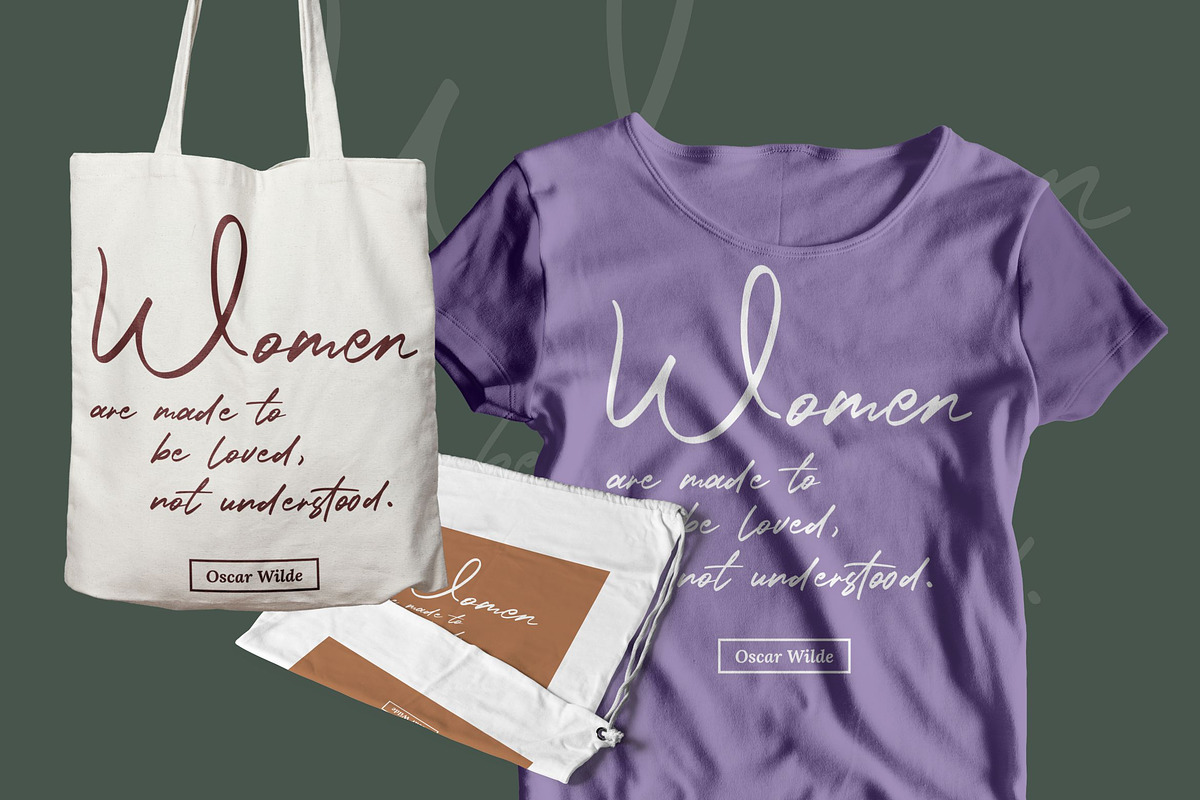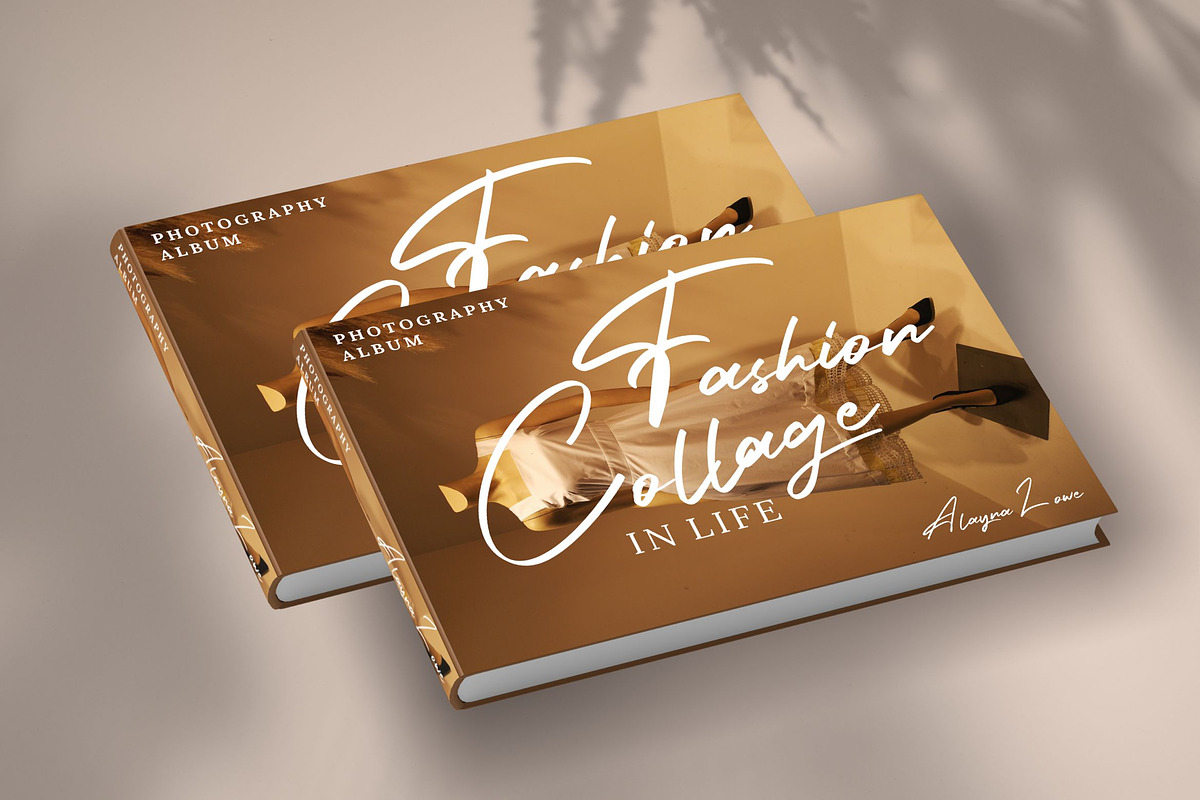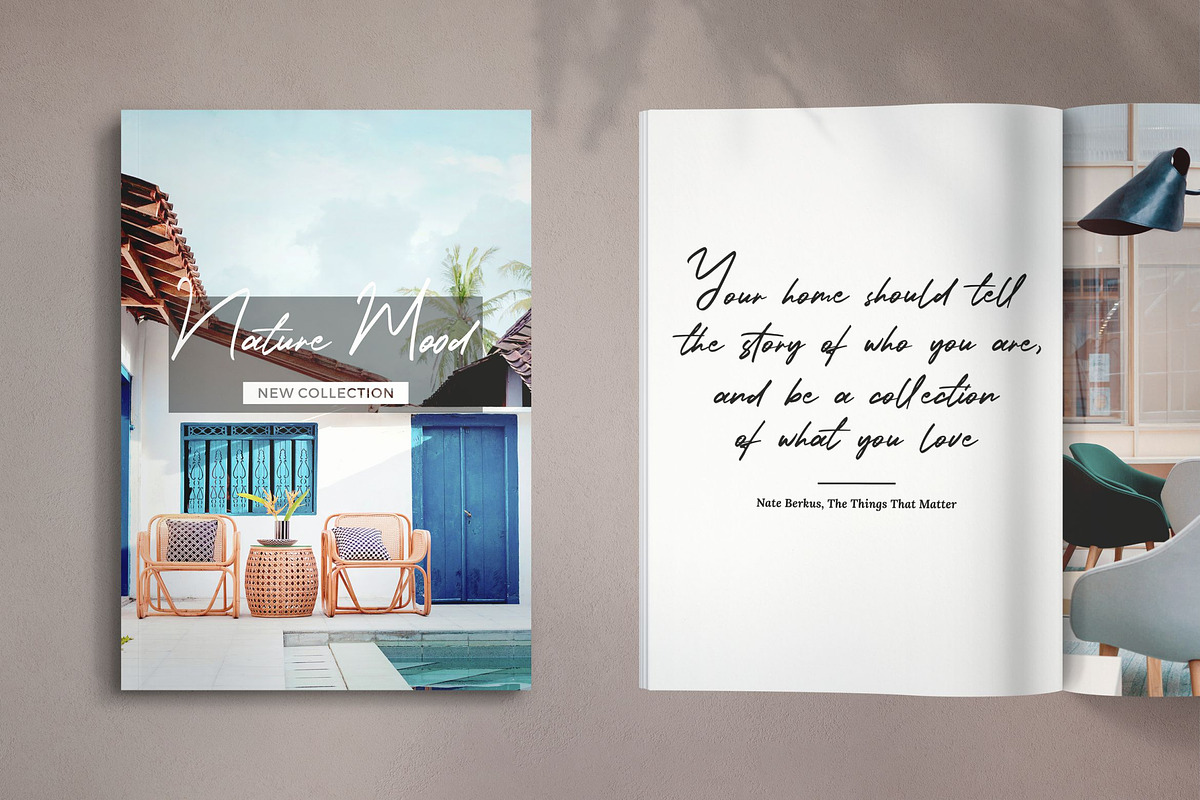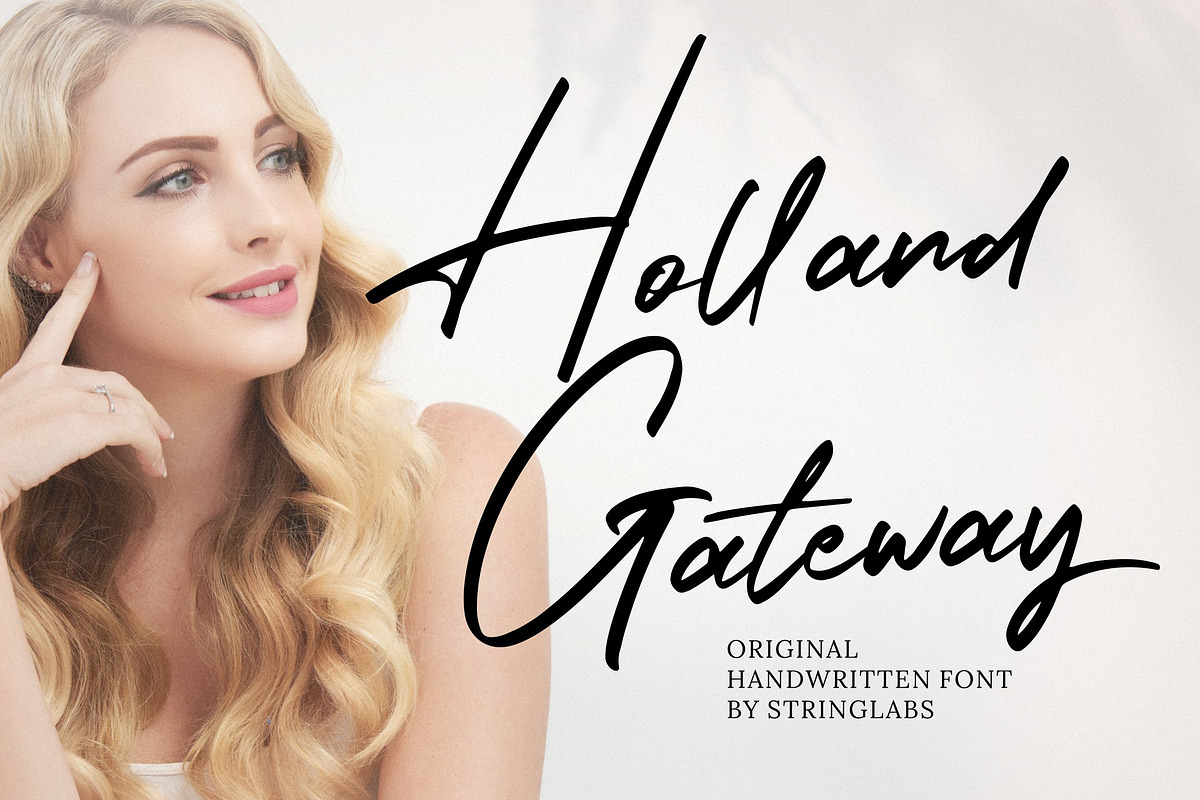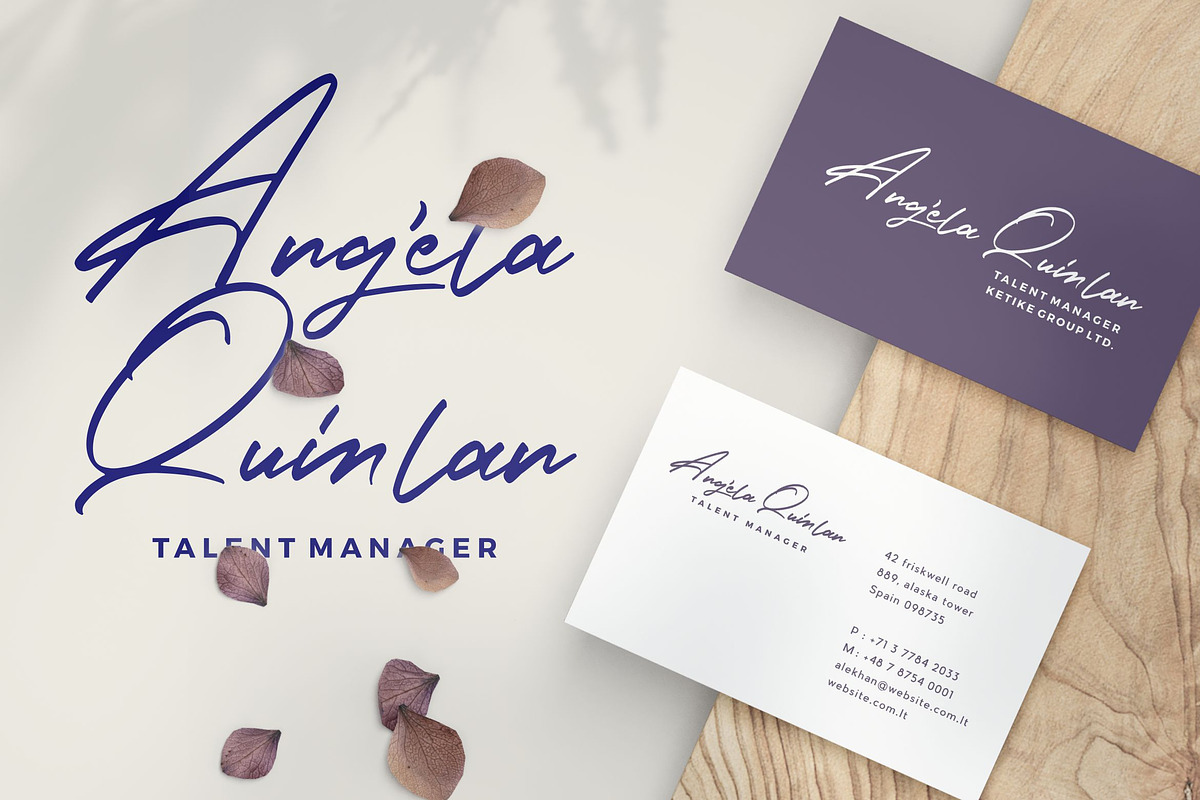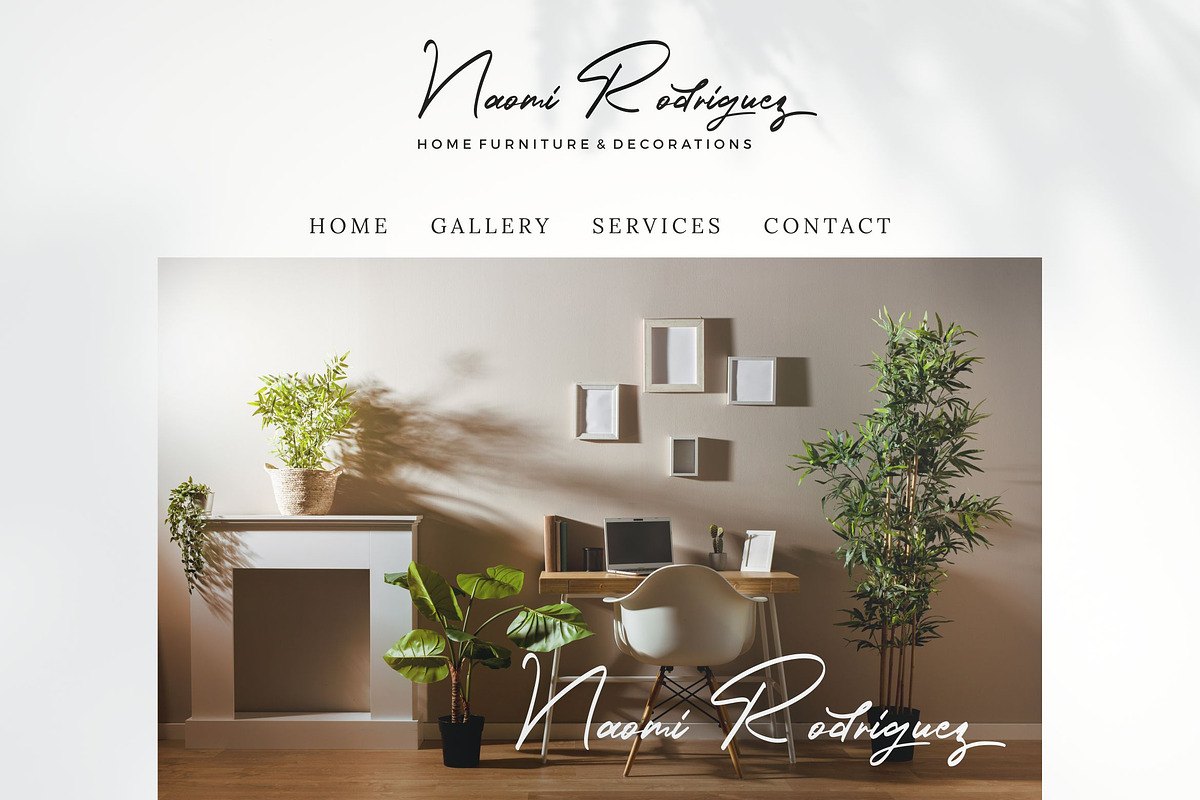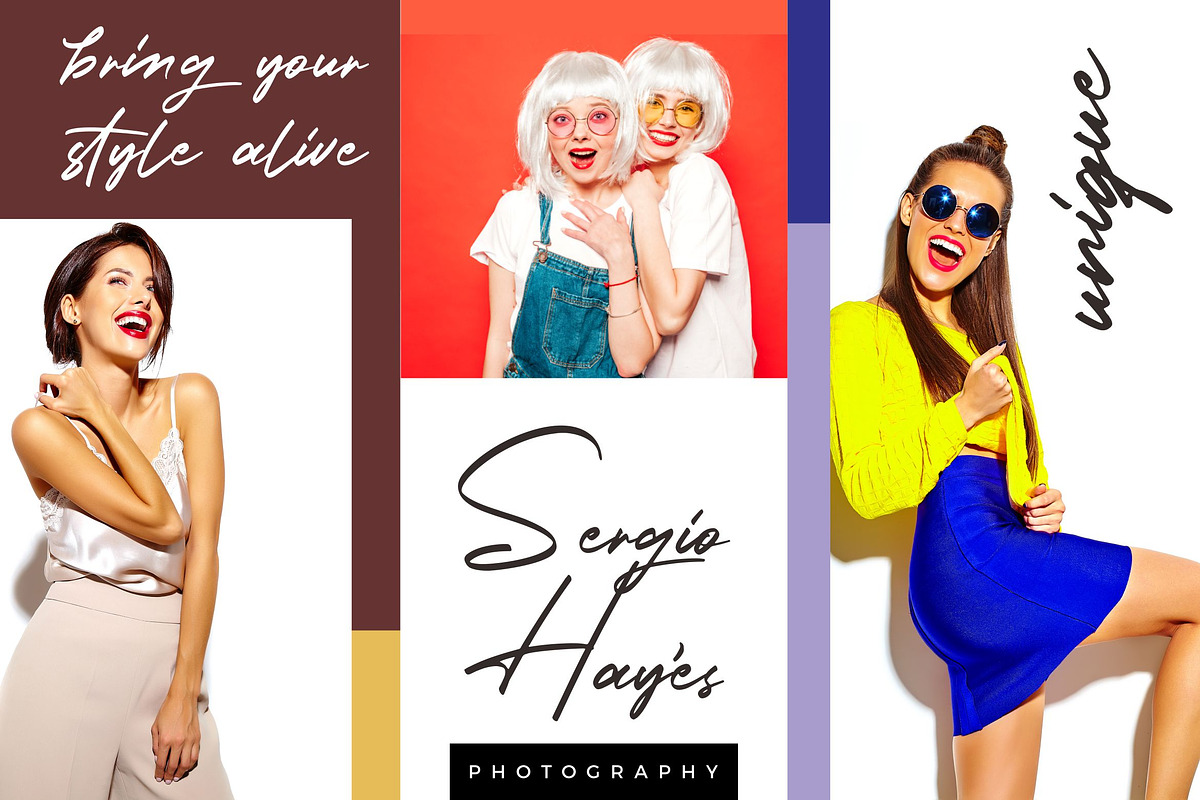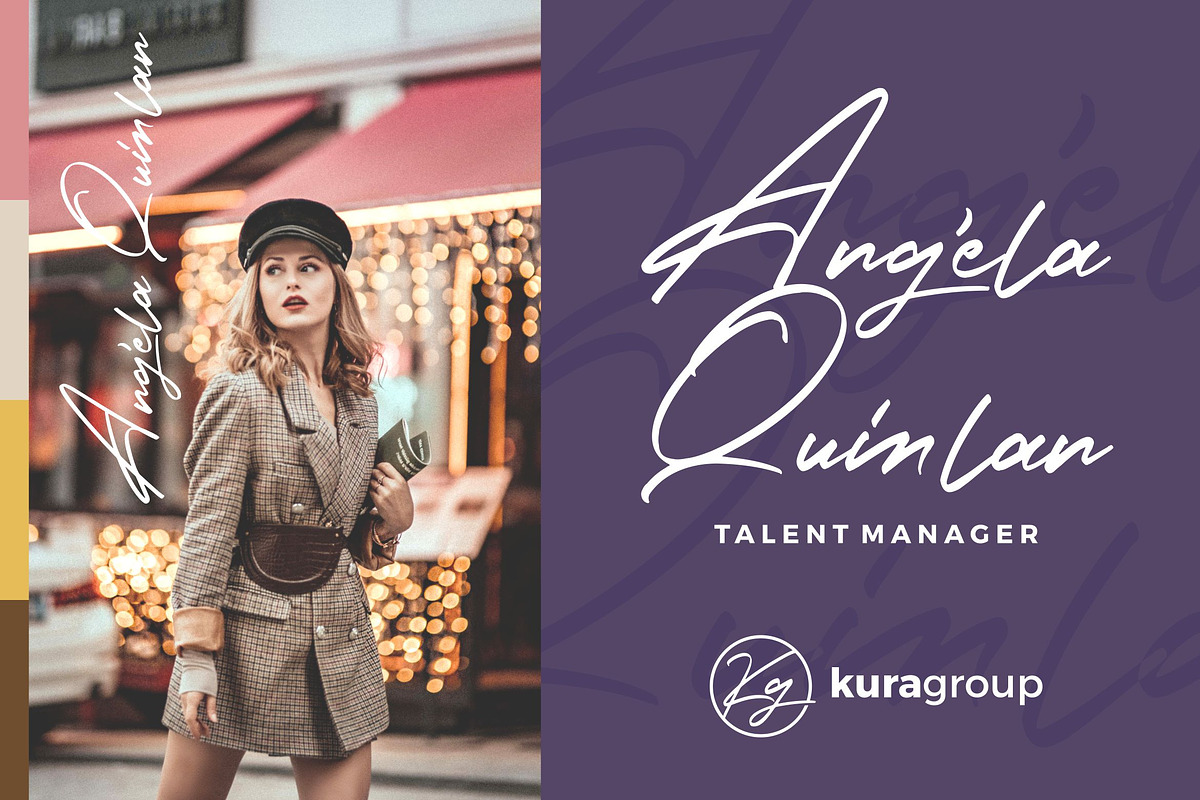
Holland Gateway - Handwritten Font
Introducing Holland Gateway - Handwritten Script Font
Holland Gateway is a Modern Script Font with Handwritten Style. The Holland Gateway font was created with authentic handwritting pen. This font is perfect for fashion brand, wedding invitation, business card, logo brand, signature, and then calligraphy.
- This Font Template contains Classy, Elegant, Creative, Cool and has a Unique Concept.